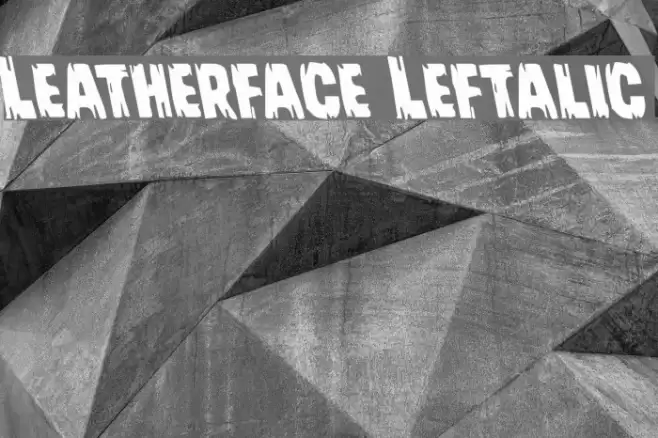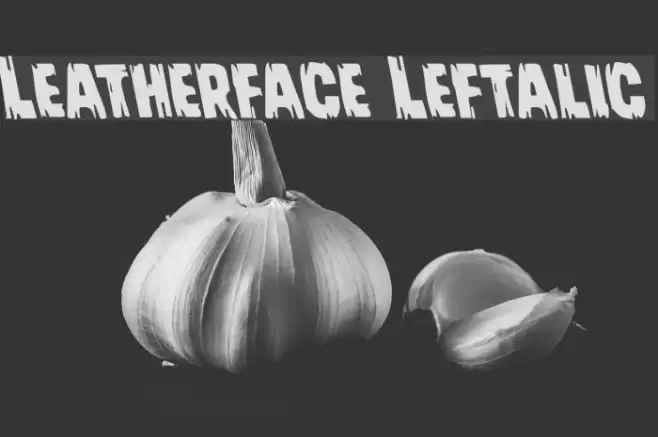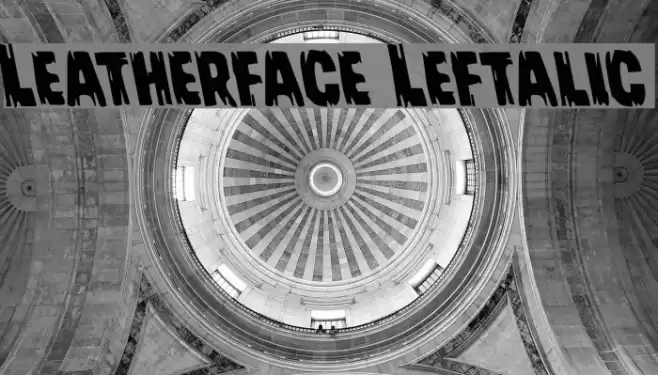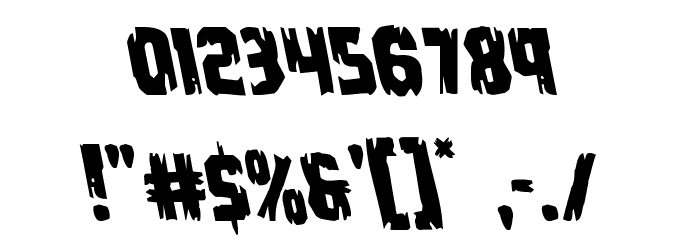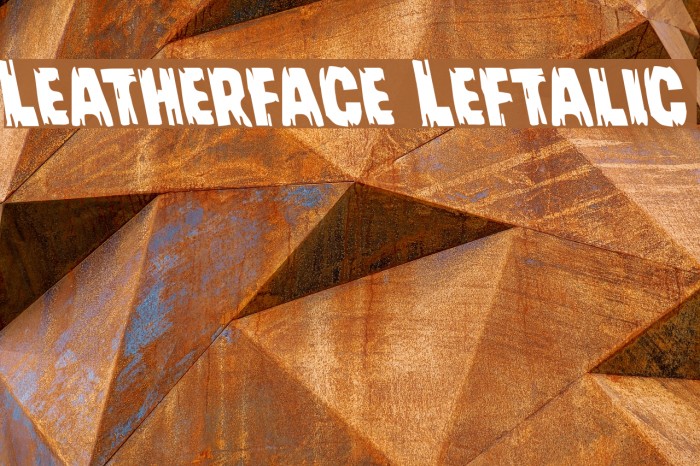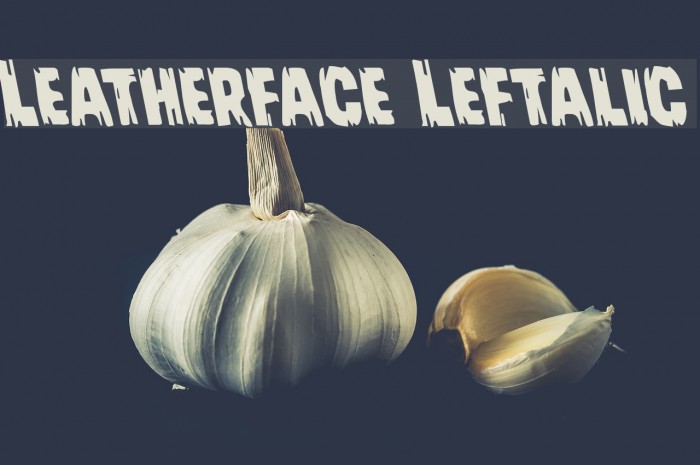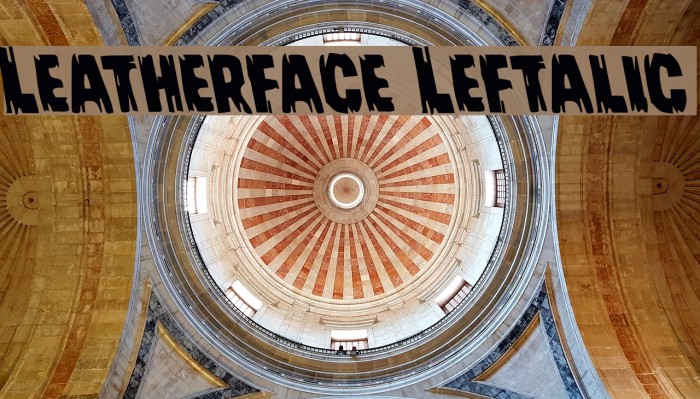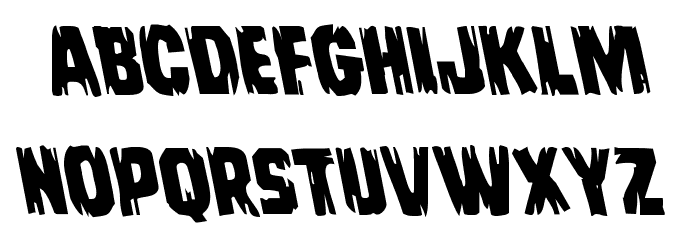
Leatherface Leftalic Font
Leatherface Leftalic Description
This font exhibits a bold and rugged style, characterized by its jagged and distressed edges that give it a raw, edgy appearance. The letters are slightly slanted, adding a dynamic and energetic feel to the text. The uppercase and lowercase characters maintain a consistent design, with each letter appearing as if it has been roughly cut or torn, enhancing its dramatic and impactful look. The numbers and special characters follow the same aesthetic, ensuring a cohesive appearance across all elements. This font is ideal for projects that require a bold statement or a gritty, rebellious vibe.
A bold, rugged font with jagged, distressed edges and a dynamic slant from Uncategorized fonts.
- Proposed Projects: Perfect for horror-themed designs, movie posters, album covers, or any project needing a dramatic, edgy look.